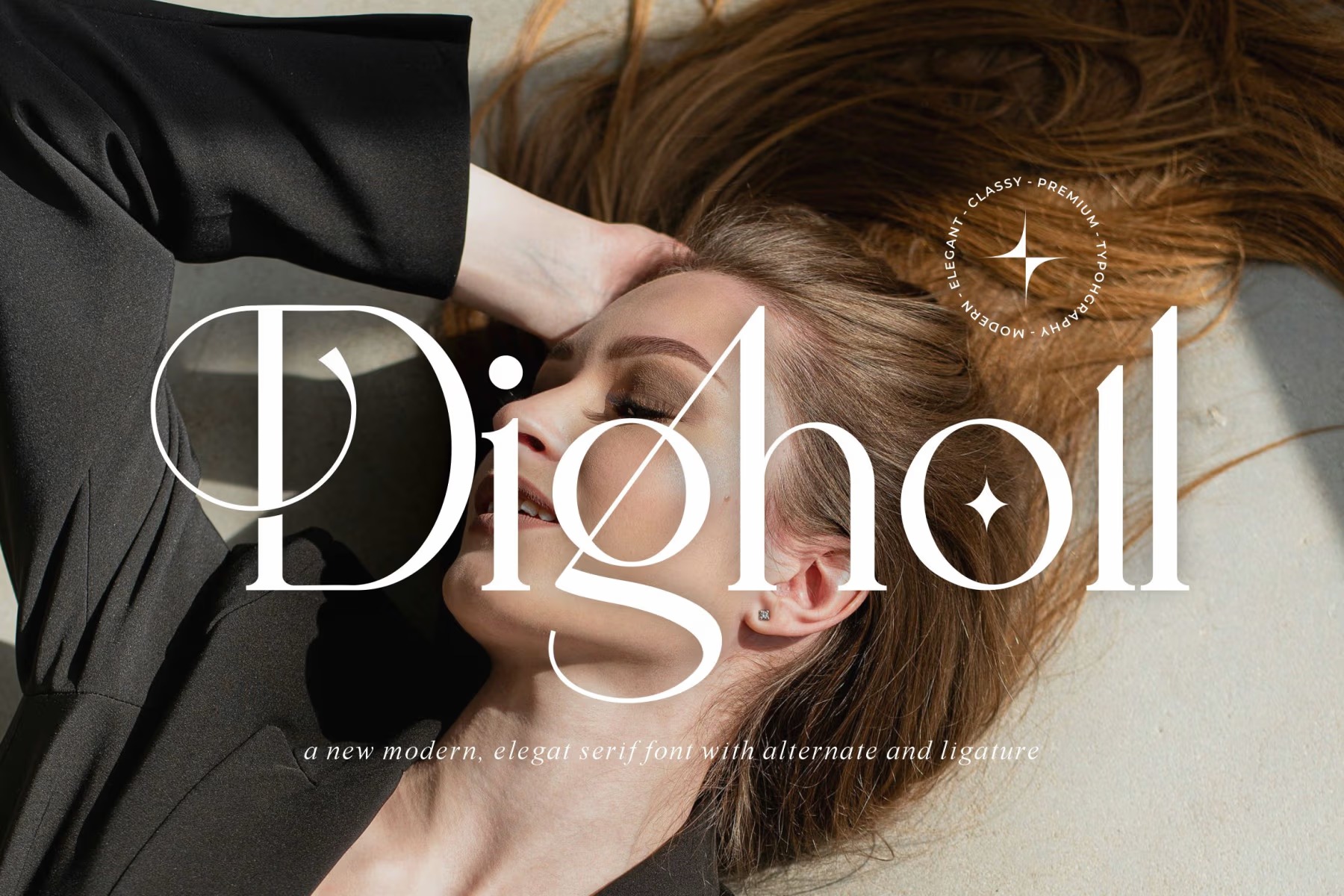
Digholl – Elegant Serif Font
Digholl – Elegant Serif Font is a professionally designed typeface that delivers clarity, structure, and consistent performance across various design applications. Digholl Serif is a modern and classy font type for all branding and logo designs. This modern and classy Serif font has a beautiful character. This font is suitable for invitation card designs, cool logos, movie titles, movie names, business cards, book titles, brand names, and various other designs. Digholl Serif is a smooth serif font that exudes sophistication and the moment. Its stylish ligatures make this font a perfect partner for any project.